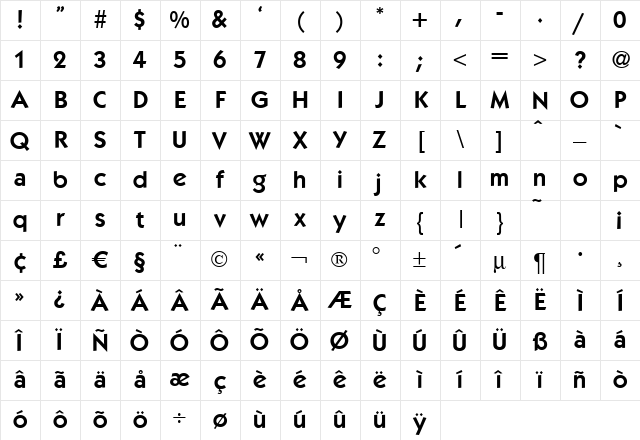
K792-Geometrical-Demi Regular
Complete K792-Geometrical-Demi Regular glyph index. Displaying only characters natively supported by K792-Geometrical-Demi Regular font.
Design Context for K792-Geometrical-Demi
K792-Geometrical-Demi is a composed and adaptable typeface that performs quietly and consistently across a wide range of design contexts.